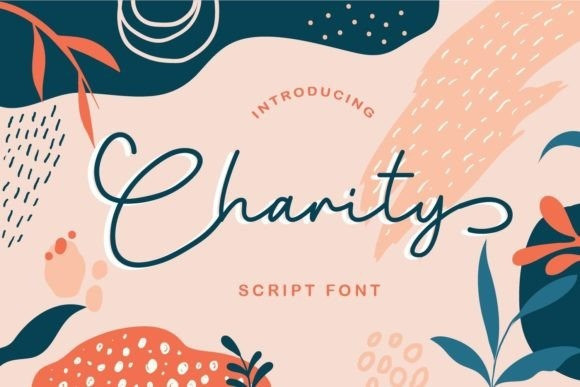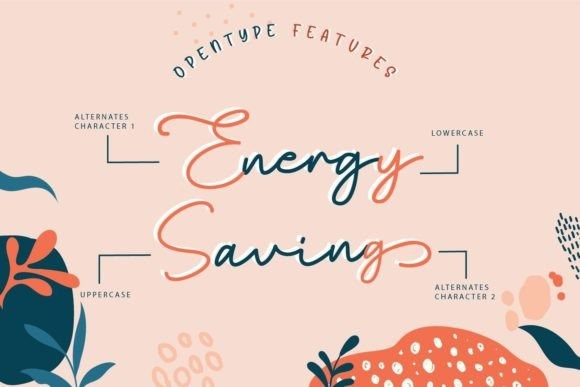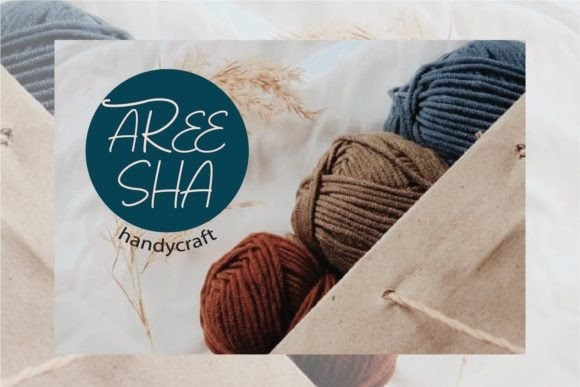
Charity Font
Charity is a fancy script font with a calligraphy style. It looks so beautiful on invitations, greeting cards, branding materials, business cards, quotes, posters, and more!